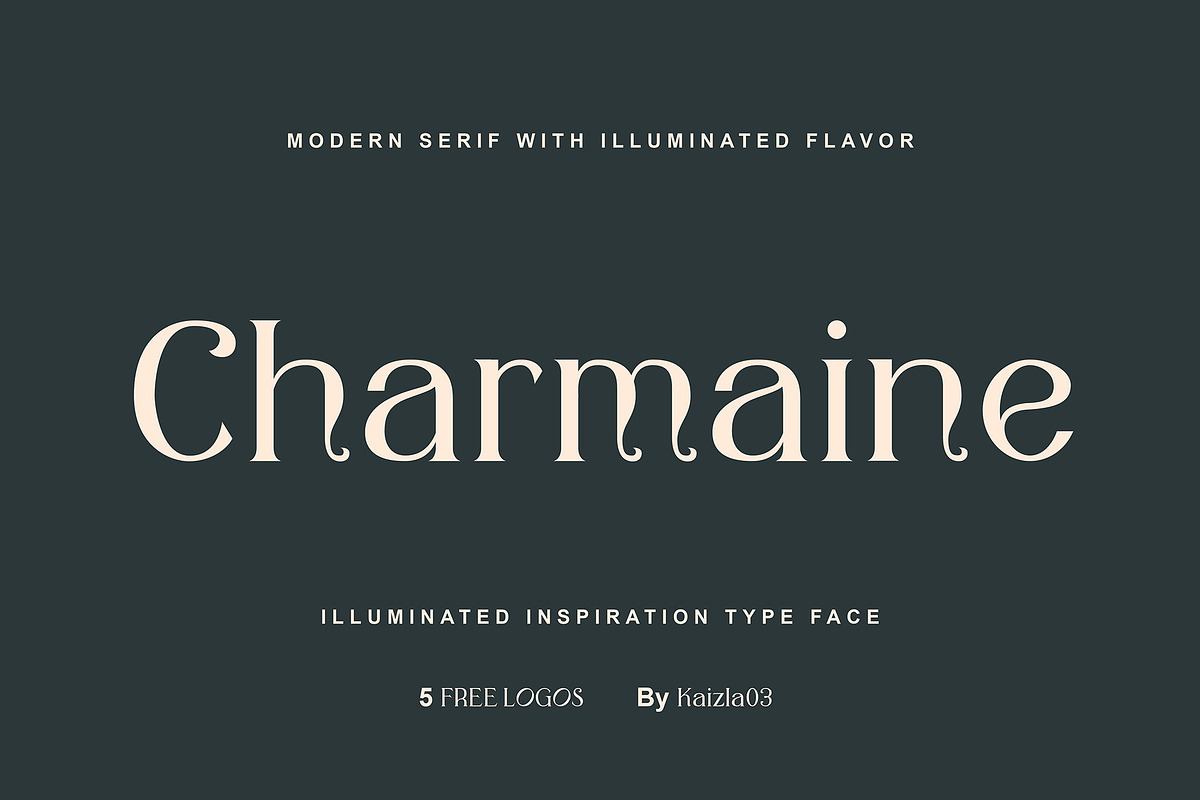
Charmaine Serif Font Free Download is a classic and elegant typeface that blends traditional serif structure with a modern touch. Designed for sophistication and readability, this font is perfect for editorial layouts, branding, invitations, packaging, and luxury product designs. Its refined curves and balanced spacing make it a standout choice for projects that need a high-end, timeless look.
Using the Charmaine Serif Font Free Download brings professionalism and grace to your typography. Whether you're crafting a magazine spread, designing a fashion label, or working on an upscale website, Charmaine delivers style and substance in every letterform.